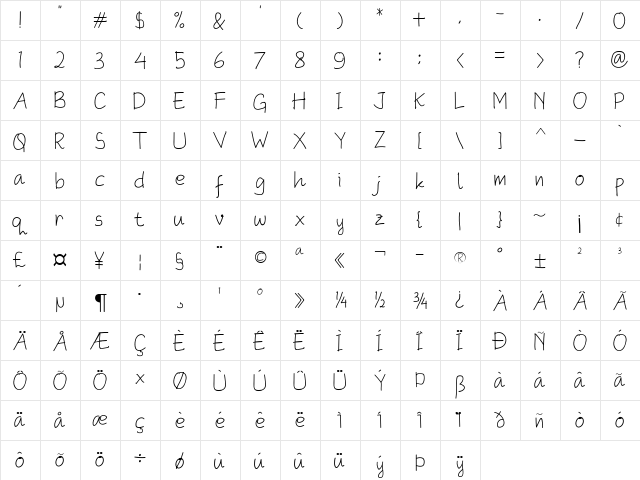
The Ninth Valley Regular
Design Context for The Ninth Valley Typeface
The Ninth Valley is a composed and adaptable typeface that performs quietly and consistently across a wide range of design contexts.